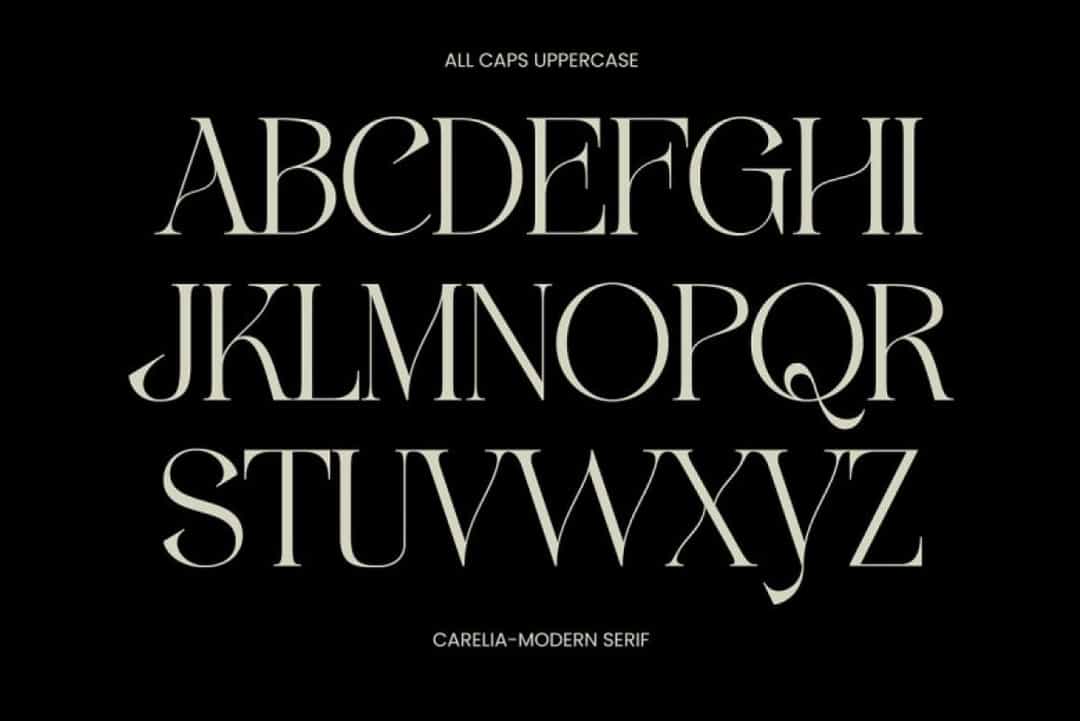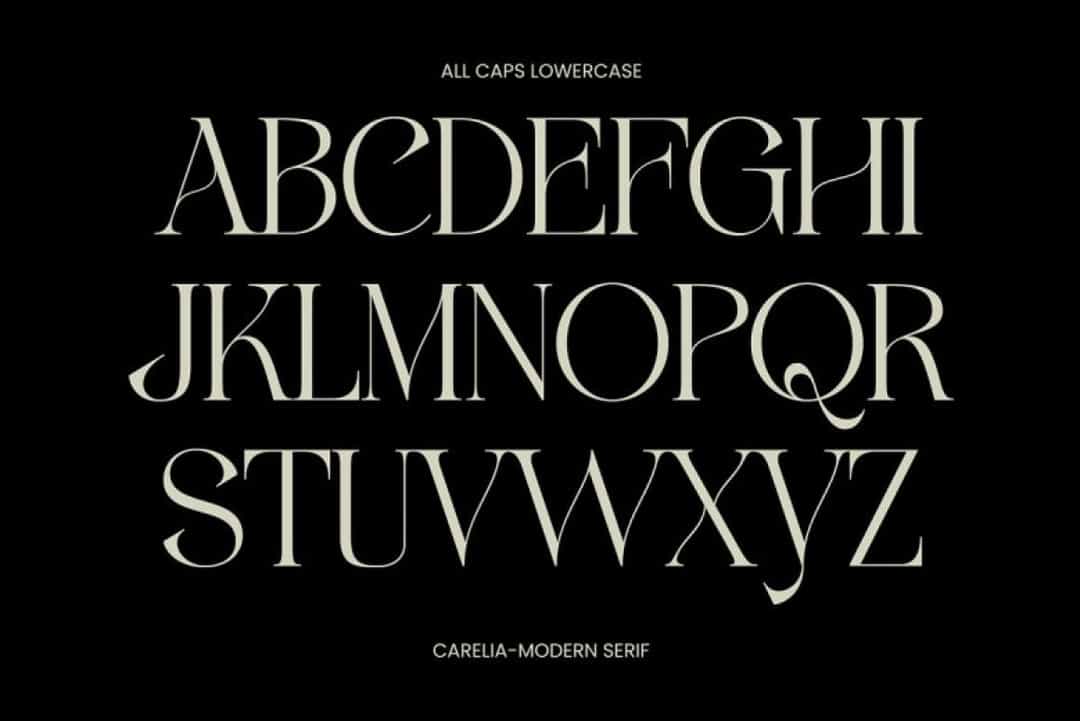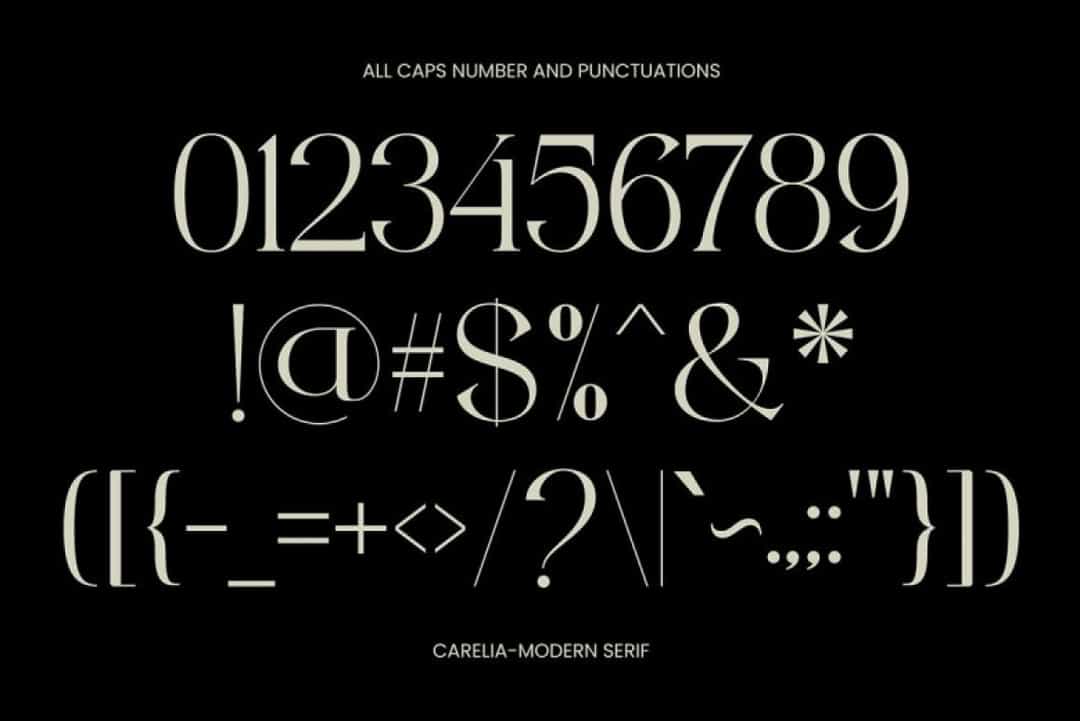
Cerelia is a modern serif font designed with simplicity in mind, perfect for adding modernity to any project. Elegant yet simple–Cerelia provides the ideal typeface experience to elevate any work with its contemporary charm and classy appearance. Ideal for logos, magazines brochures social media applications and many other applications requiring modern typefaces.